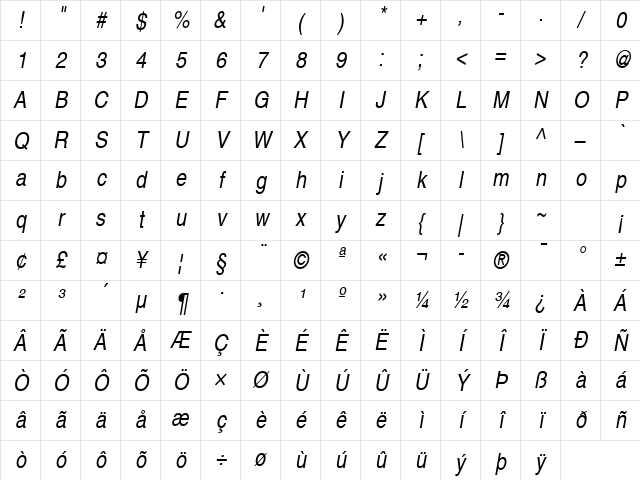
Helvetica Narrow Oblique
Helvetica Narrow Family
Design Context for Helvetica Narrow
Helvetica Narrow is a composed and adaptable typeface that performs quietly and consistently across a wide range of design contexts. The slanted form adds forward momentum and visual energy. Its narrow stance lets it pack a punch even in space-constrained designs.
Pro Tip: Use Helvetica Narrow for emphasis, pull quotes, and subheadings where its slanted energy can add rhythm to the layout.